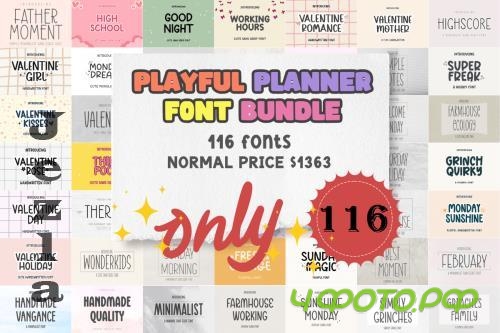
Playful Planner Font Bundle - 116 Premium Fonts
Playful Planner Font Bundle
Are you a DIY enthusiast or love creating planners, scrapbooks, or crafting projects? The Playful Planner Font Bundle is here to meet your creative needs!
With 116 playful and versatile handwritten fonts, you can add a unique and personal touch to any project.
From invitations and labels to planner designs, these fonts are perfect for unleashing your creativity.
– 116 Exclusive Fonts: Each font is designed with a fun, playful style that’s perfect for a variety of crafting projects.
Are you a DIY enthusiast or love creating planners, scrapbooks, or crafting projects? The Playful Planner Font Bundle is here to meet your creative needs!
With 116 playful and versatile handwritten fonts, you can add a unique and personal touch to any project.
From invitations and labels to planner designs, these fonts are perfect for unleashing your creativity.
– 116 Exclusive Fonts: Each font is designed with a fun, playful style that’s perfect for a variety of crafting projects.